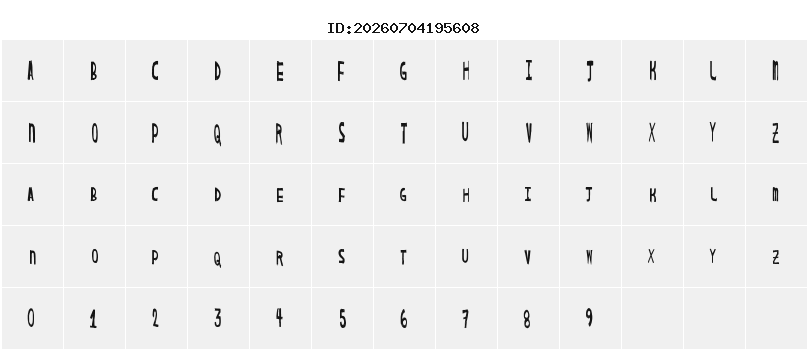
DraftHouse Preview
• Font Name: DraftHouse
• Designer: Max Infeld
• Manufacturer: Xerographer Fonts
• Description: Created near Butte College, Oroville, CA by Xerographer Studios
About DraftHouse.ttf
DraftHouse.ttf is a modern, elegant sans-serif font designed for ultimate readability and visual harmony. Perfect for branding, headlines, web design, and print materials.